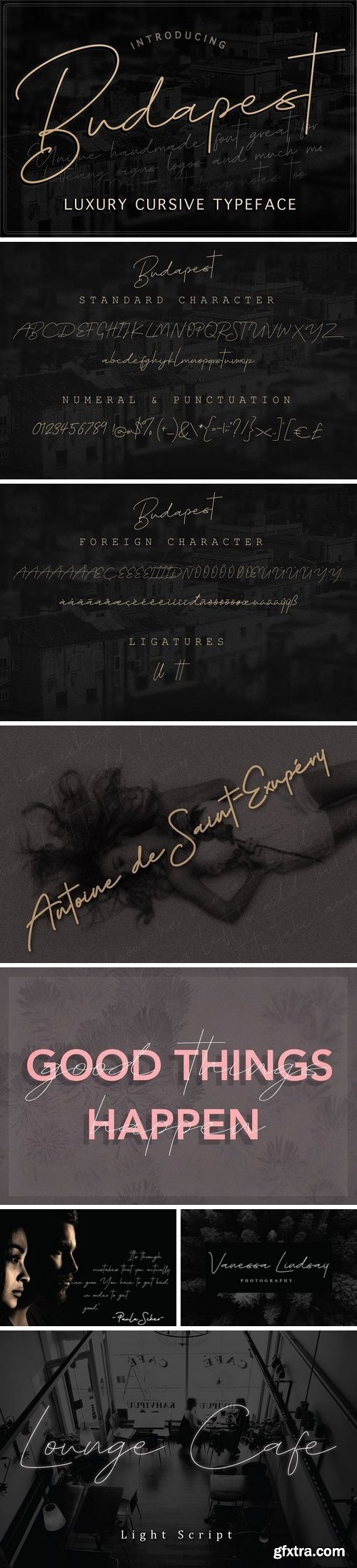
CM - Budapest || Cursive Typeface 3 Fonts 3308447
Budapest Script is a handwritten signature script with a natural & stylish flow. This collection of 3 fonts is perfect for personal branding, signs, wedding invitations, cosmetics, liquor labels, and much more!